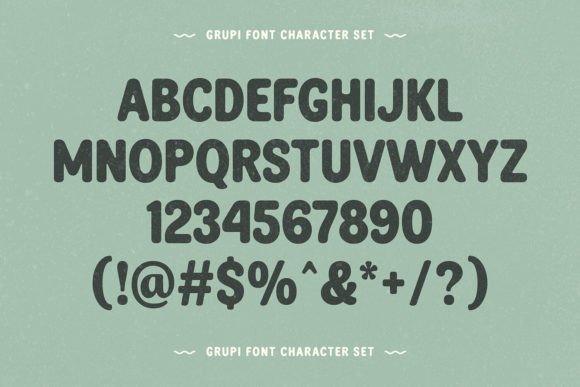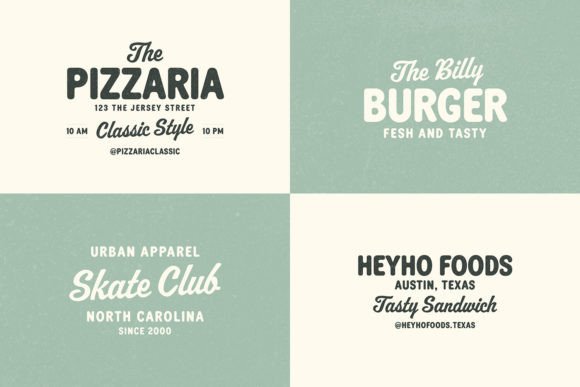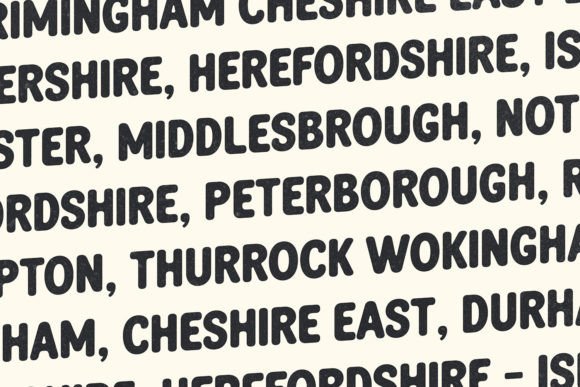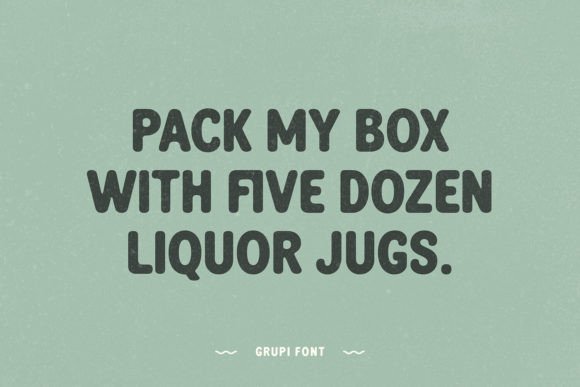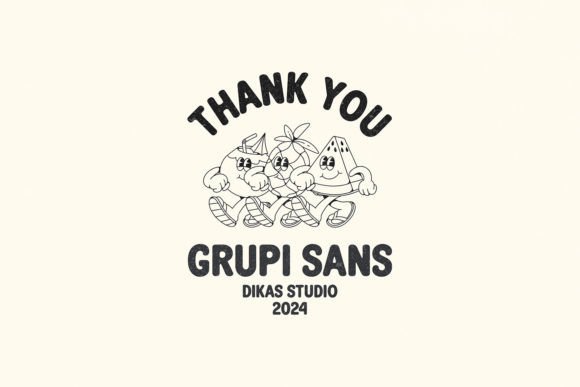
Introduction to Grupi Sans Font
Grupi Sans – Rounded Fun with a Retro Twist Grupi Sans is a font with rounded, bold, and fun characters, designed to bring a positive vibe to any design.
Inspired by retro, groovy, and pop styles, this font is perfect for projects that need a touch of modern nostalgia With its versatility, Grupi Sans is ideal for creating standout badges and labels that are memorable and eye-catching.
Key Features of Grupi Sans Font
Why Choose Grupi Sans Font?